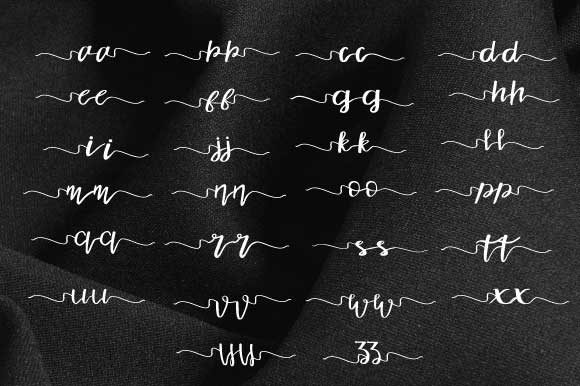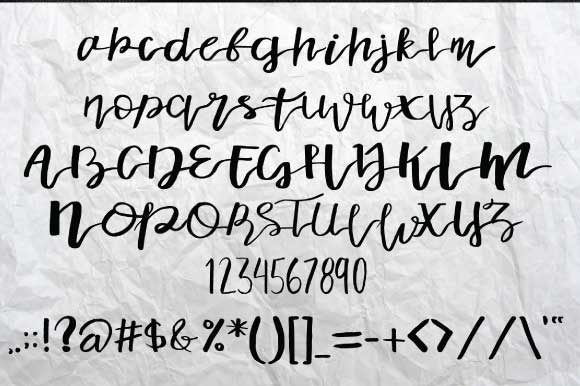
HomeScript FontsAishia Font Script Fonts Aishia Font FacebookXPinterestWhatsApp Aishia Font Poster 2 Aishia Font Poster 3 About Aishia Font Aishia is a sweet and simple script that will turn any design idea into a true standout! DOWNLOAD ON CREATIVE FABRICAThis font is sold and delivered by Creative Fabrica. Font Canyon may earn a commission if you buy through this link. People also explored Stockholder Font Yoshire Font Cantika Font Love & Stuff Pack Font Amazing Valentine Font Vairas Font Rezeltye Font Aglaonema Font Rockford 292 0 TagsAishia Font Previous articleLittle FontNext articleEstele Font LEAVE A REPLY Cancel reply Comment: Please enter your comment! Name:* Please enter your name here Email:* You have entered an incorrect email address! Please enter your email address here Website: Save my name, email, and website in this browser for the next time I comment. Personal Use Free Propaganda Personal Use Free Read more about this font Degrassi Personal Use Free Read more about this font Waturaden Personal Use Free Read more about this font Vincent Familiante Personal Use Free Read more about this font BLOG Where to Buy American Fonts Online in 2024 Where to Buy American Fonts Online: The Ultimate Guide for 2024 Looking for the perfect American font to elevate your design projects? You're in the... Exploring Font Trends Transform Your Website: Elevate Your Typography with 7 Best Web Font Generators Best Fonts for T-Shirt Design – Top 2025 Picks